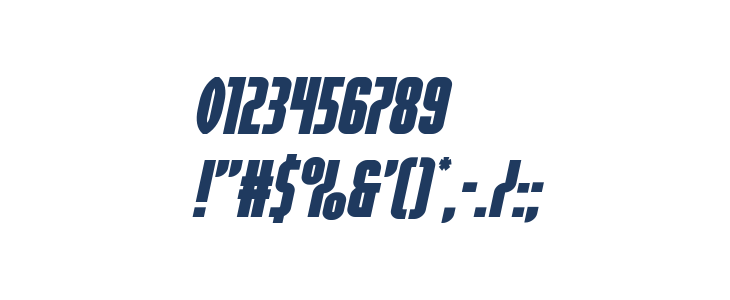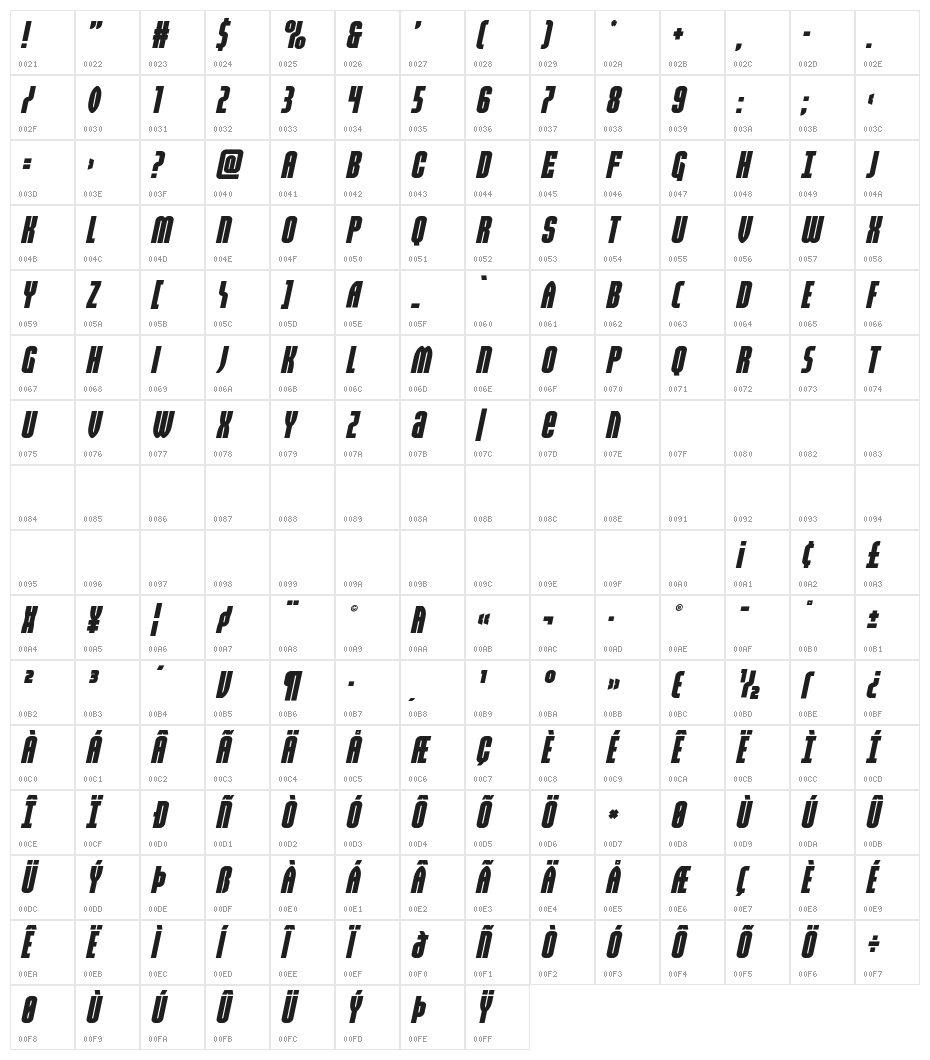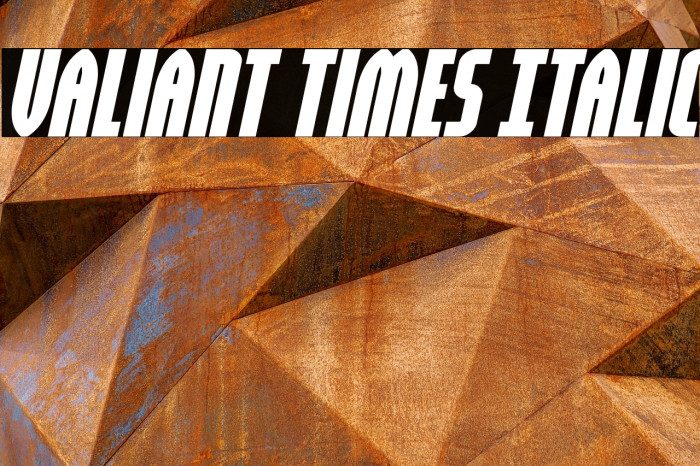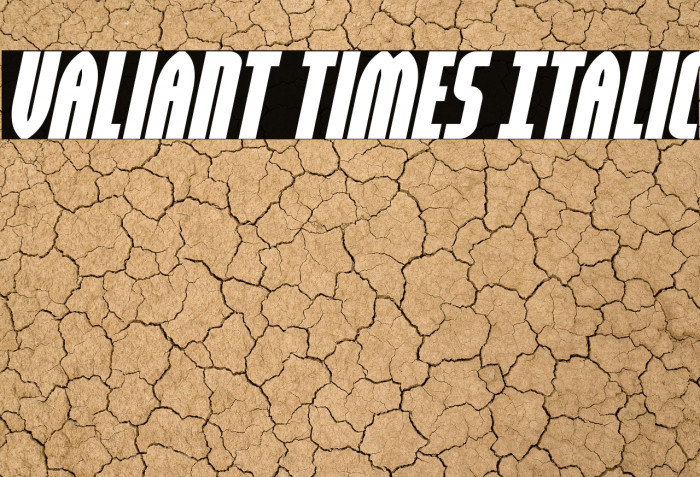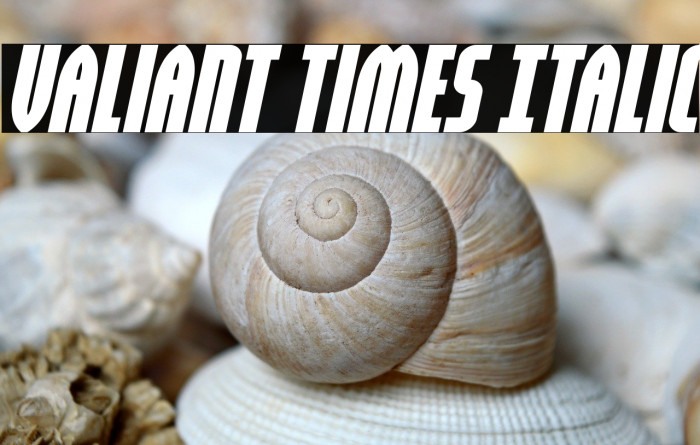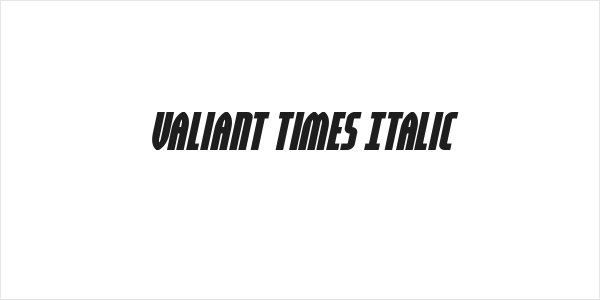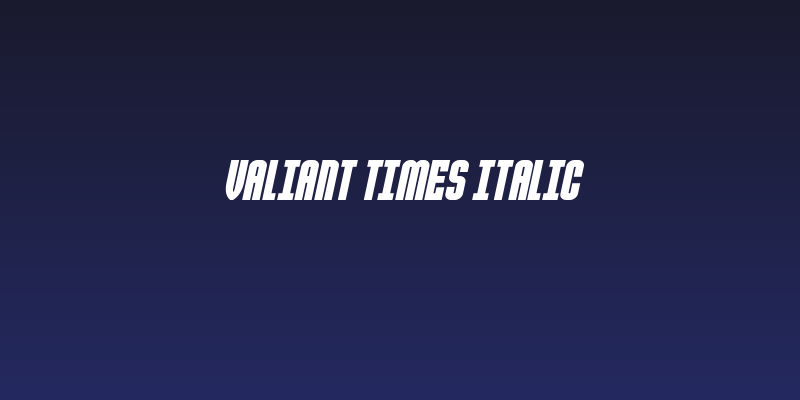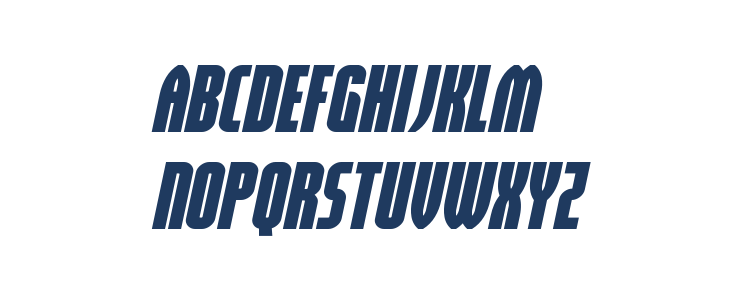
Valiant Times Italic Font
Valiant Times Italic Description
This font features a bold and dynamic style with a strong italic slant, giving it a sense of motion and energy. The characters are tightly spaced, enhancing the compact and impactful appearance. The strokes are thick and consistent, providing a high contrast that makes the text stand out prominently. The uppercase and lowercase letters maintain a uniform width, contributing to a cohesive and structured look. The numerals and special characters are designed to match the boldness and style of the alphabet, ensuring a harmonious overall appearance.
Proposed ProjectsIdeal for sports branding, dynamic posters, and attention-grabbing headlines.